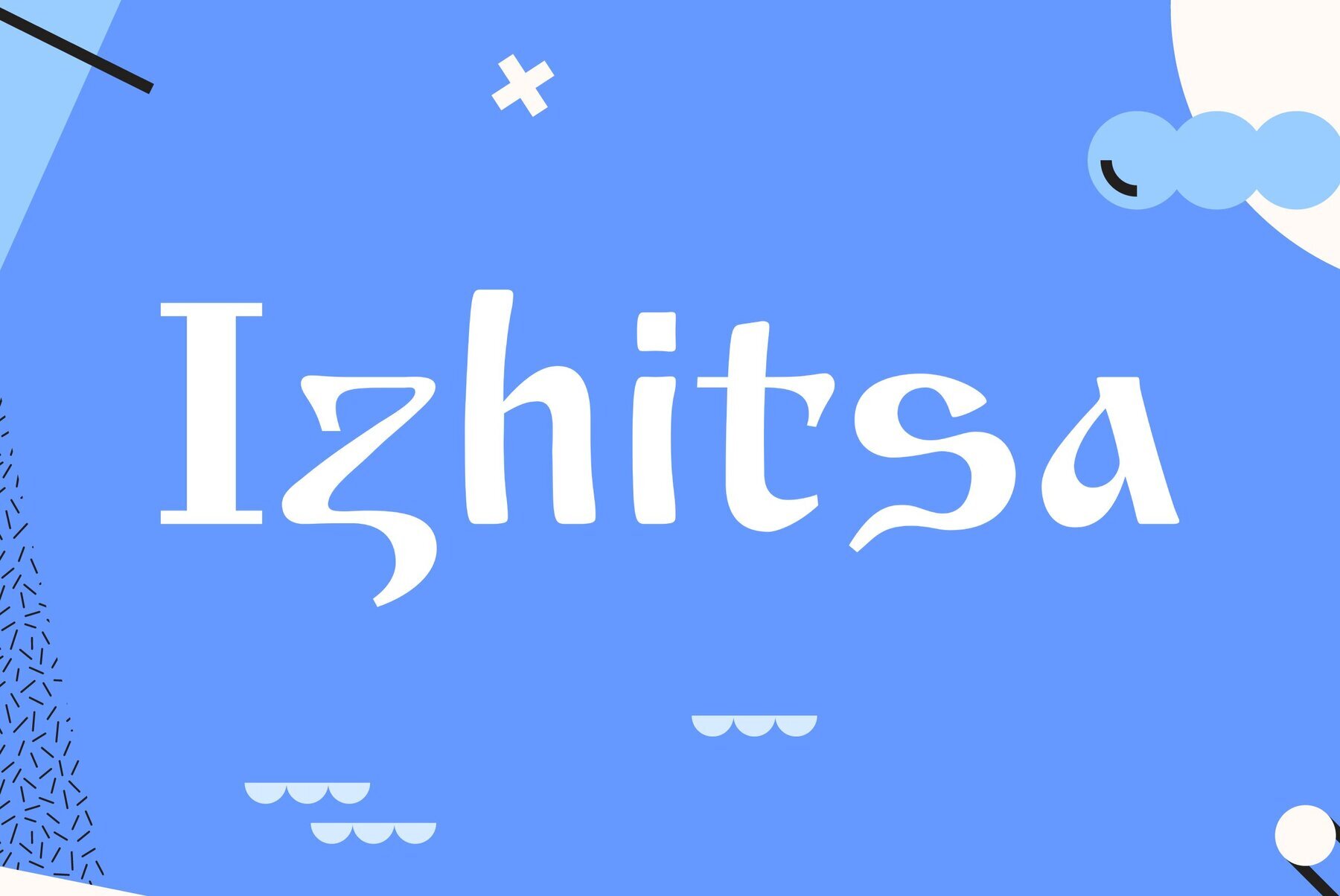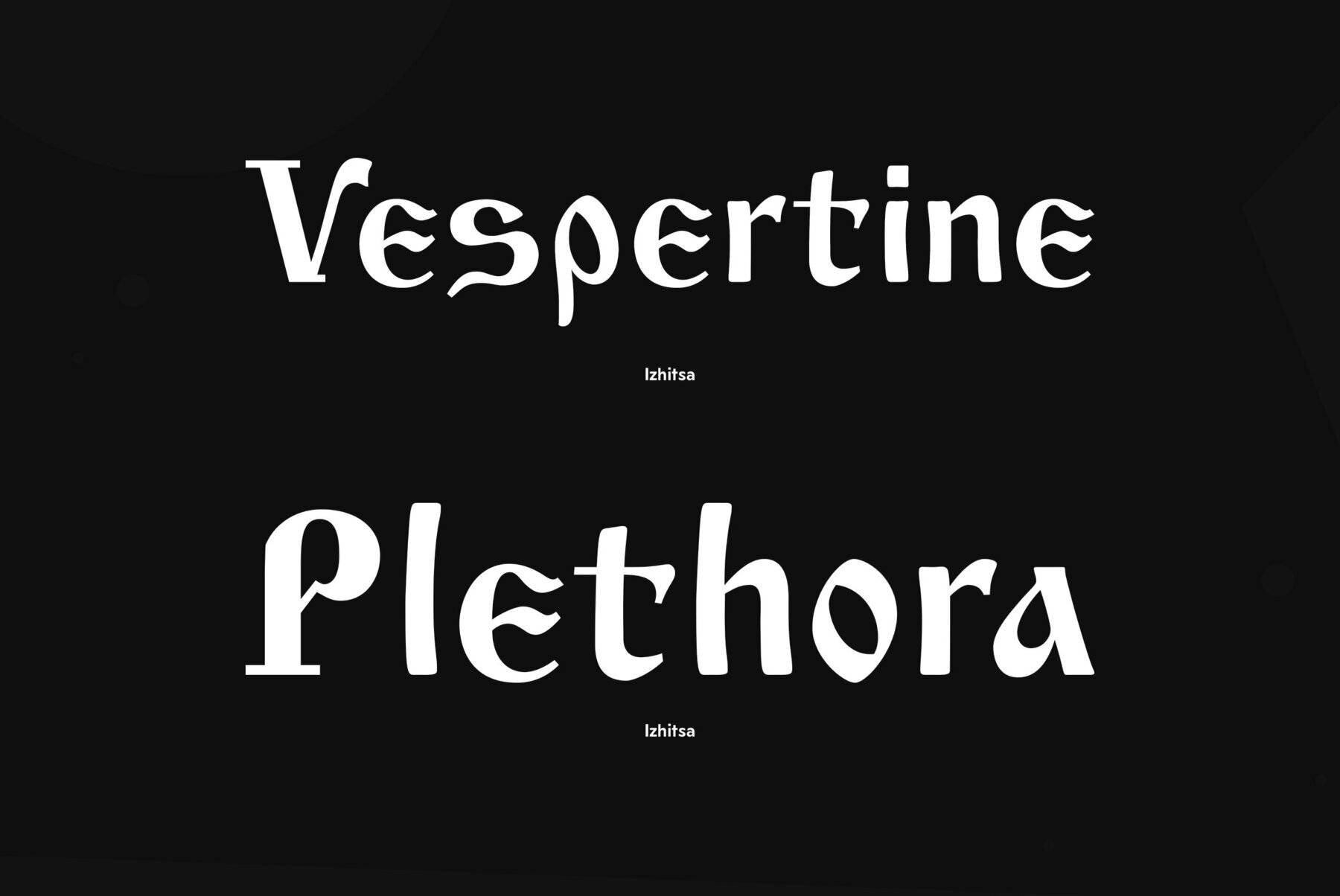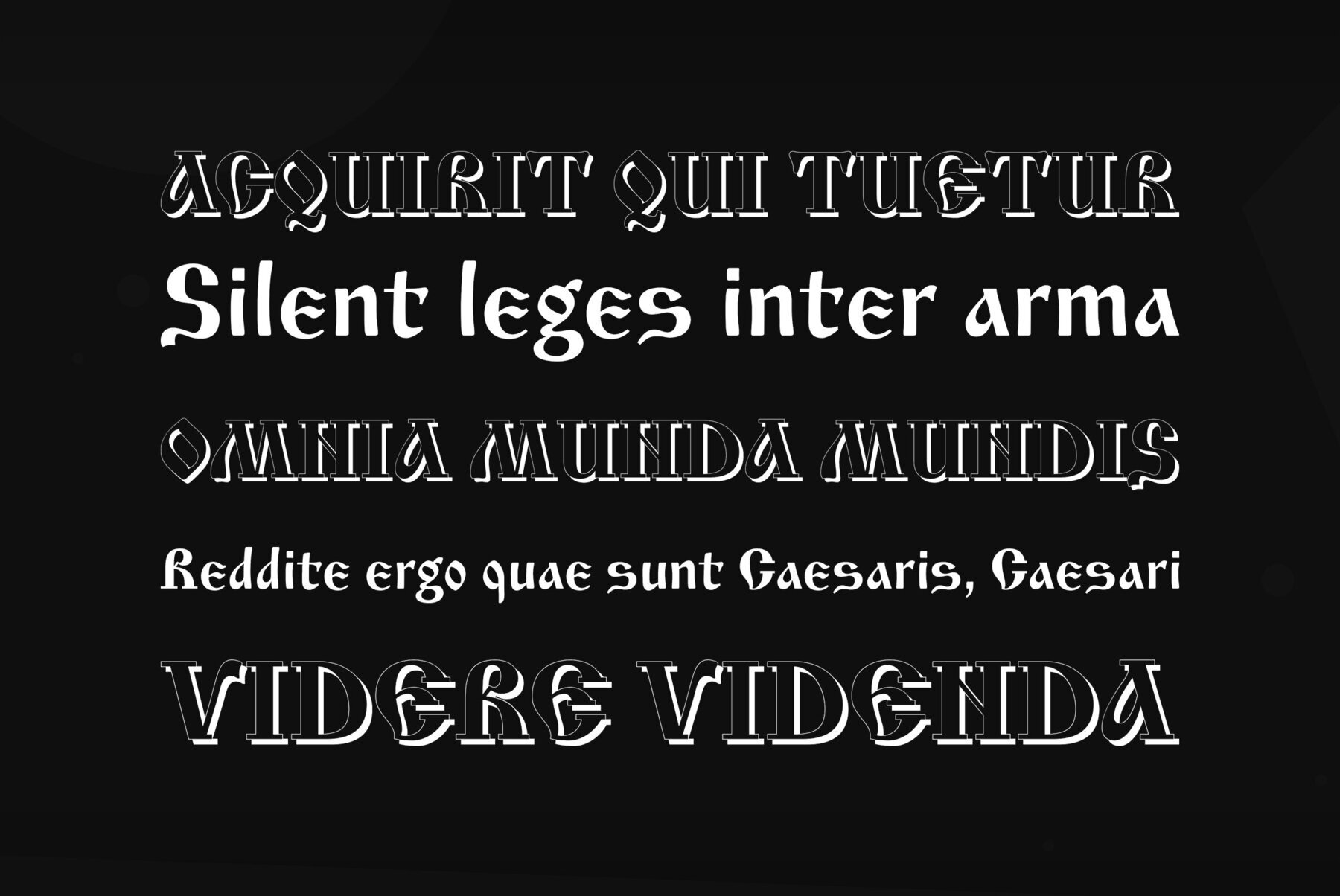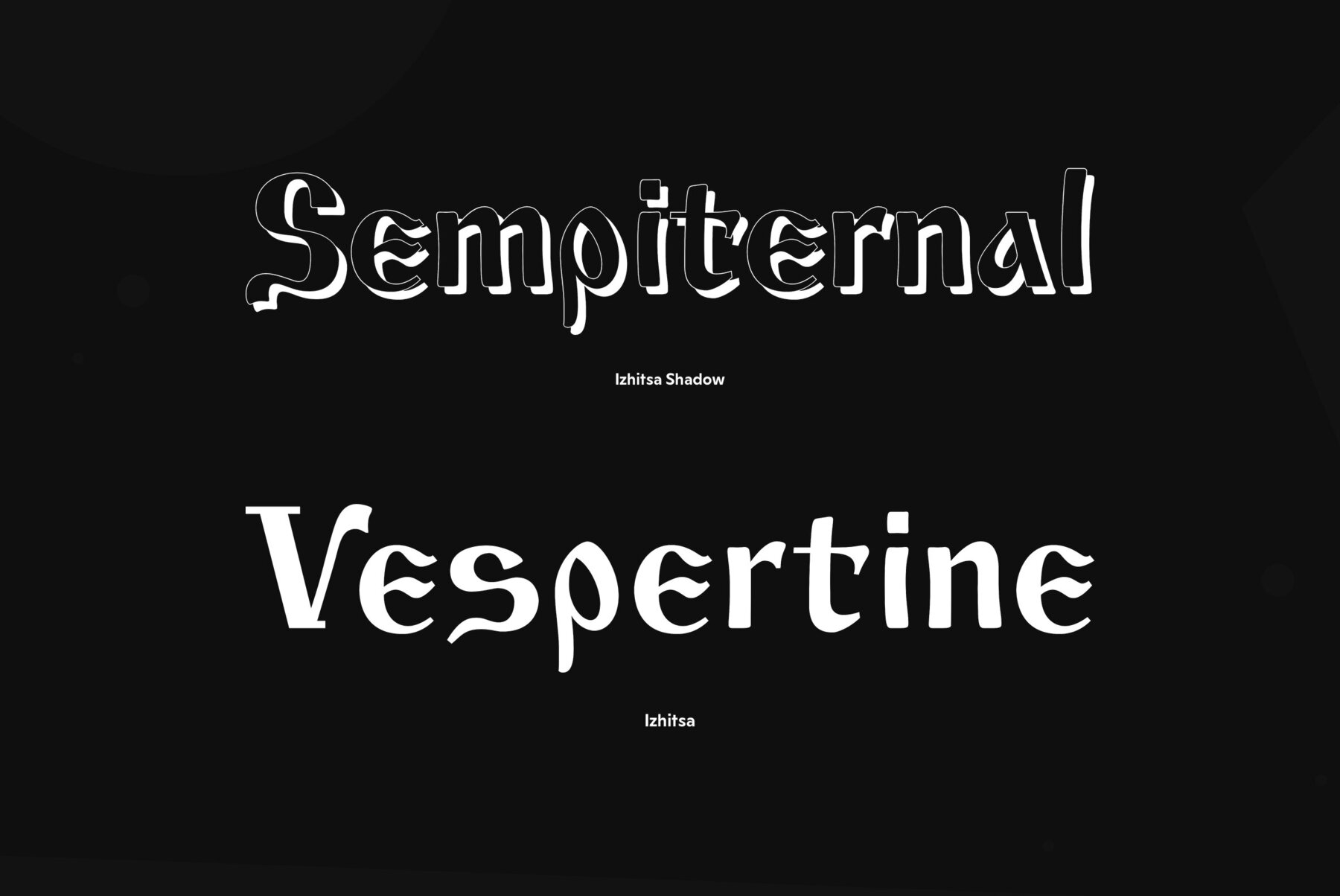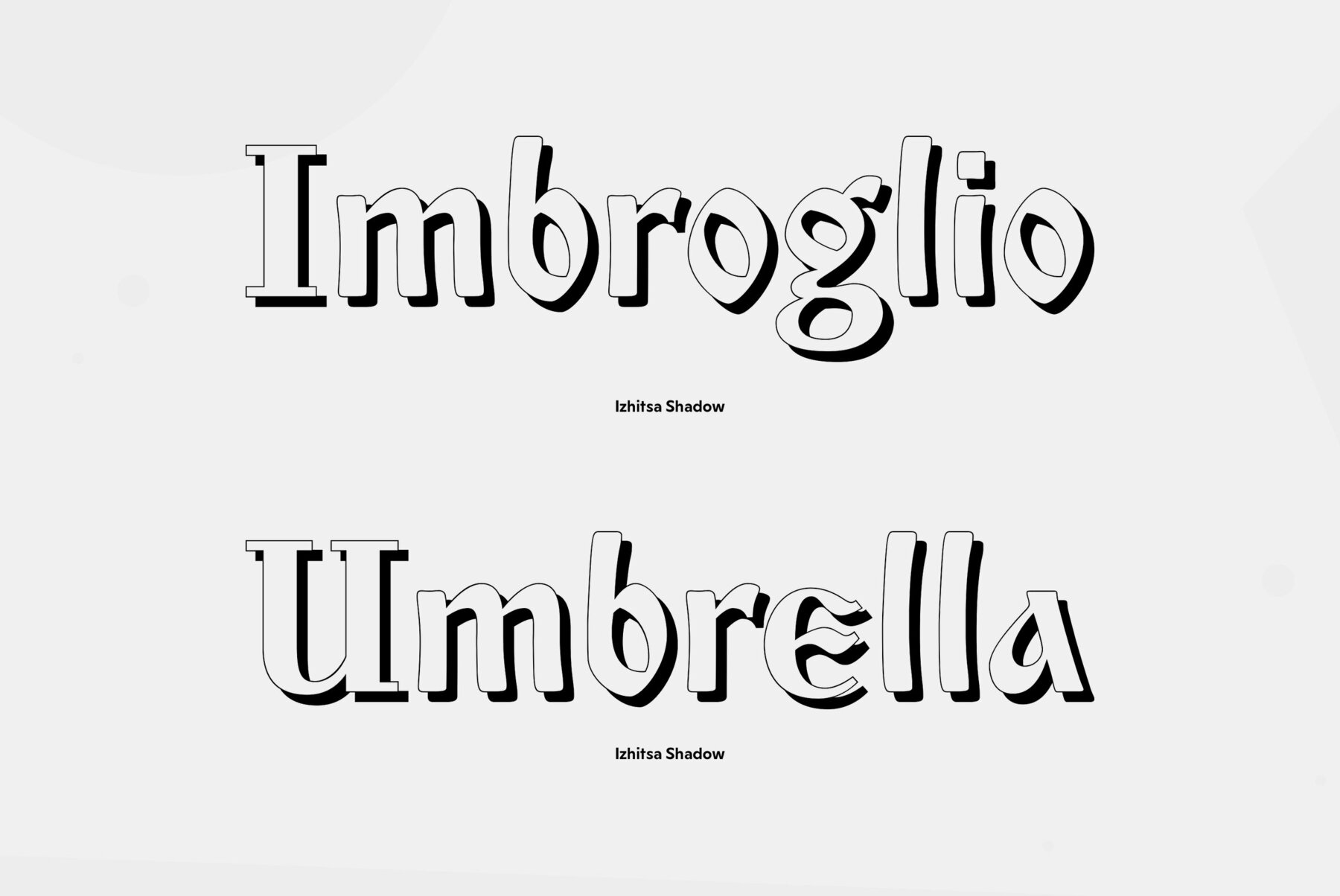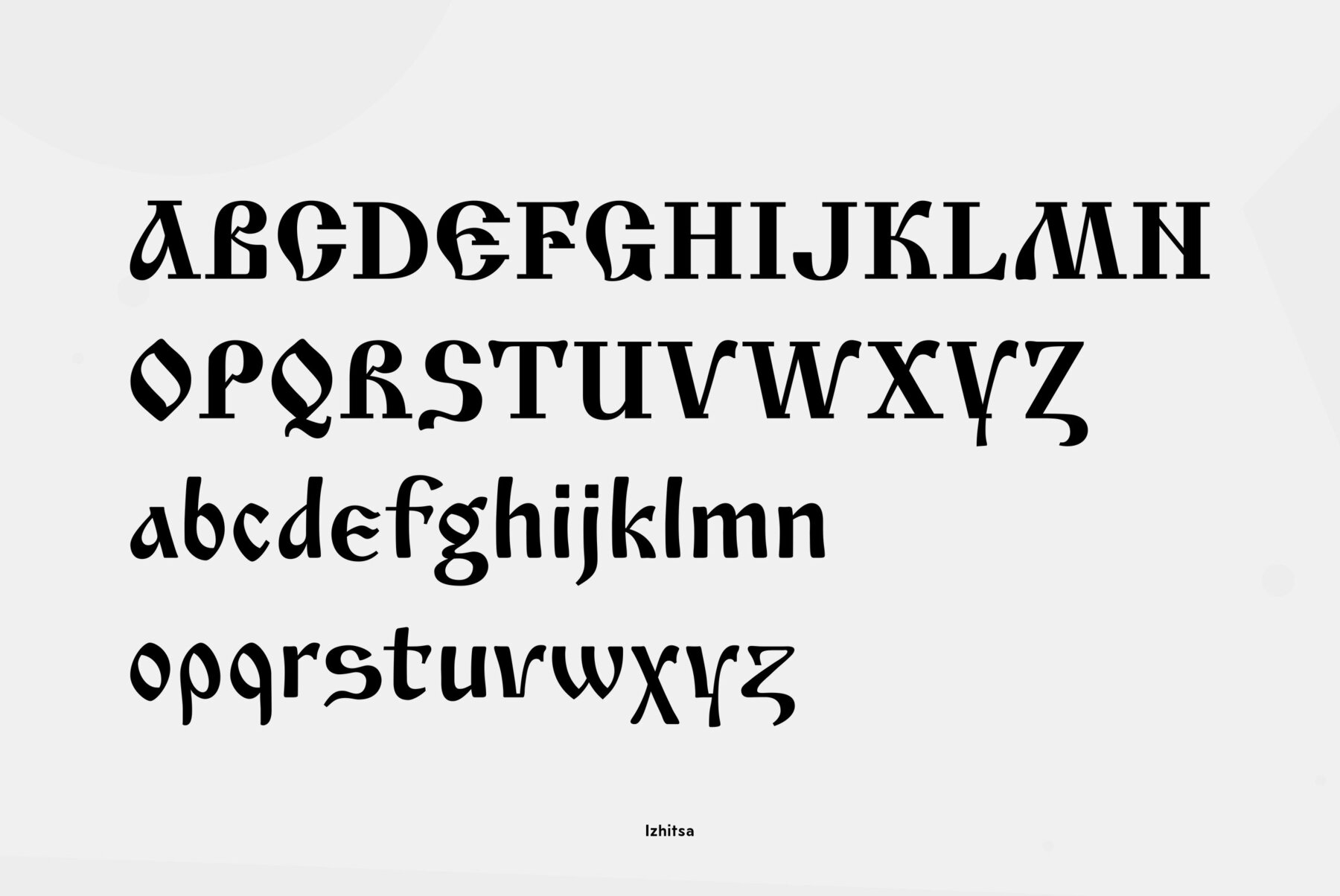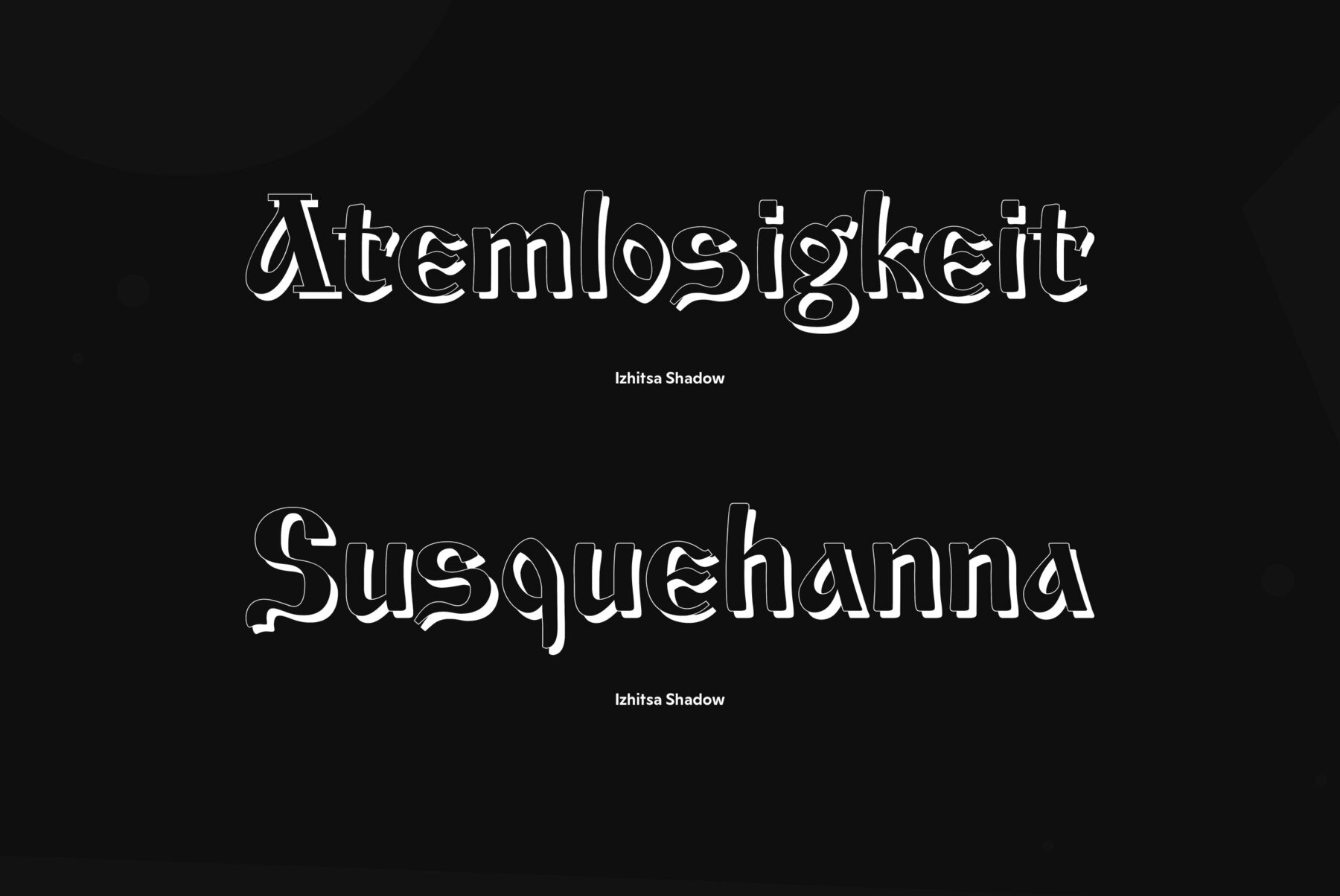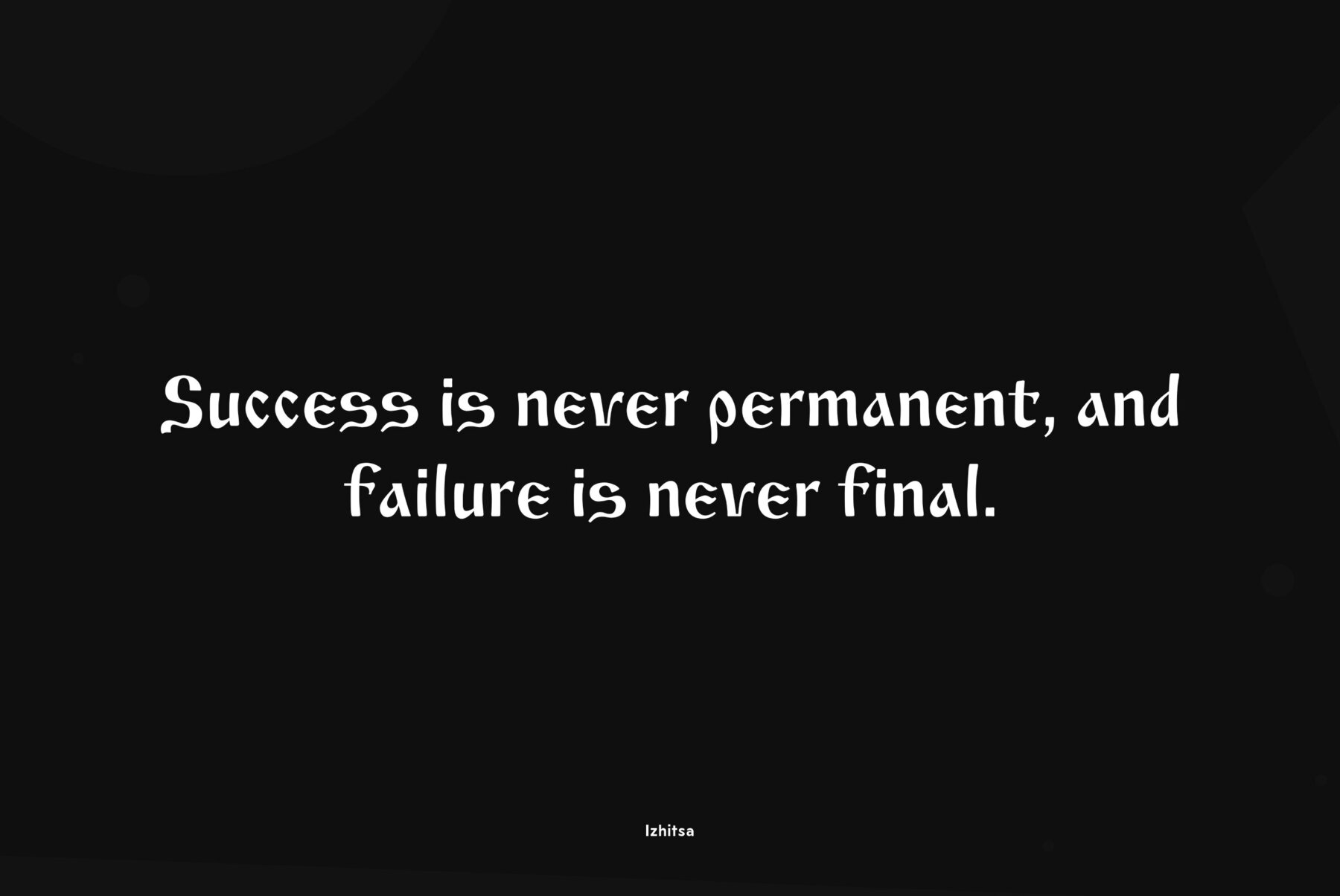
Izhitsa Font
Izhitsa
Izhitsa Shadow
Designed at Polygraphmash type design bureau in 1988 by Svetlana Yermolaeva. Based on Kirillitsa (1982), inspired by typographic poluustav of the Printing Office of the Russian Empire Academy of Science (late 19th century). Shadow style was added by Alexander Tarbeev in 1994. Latin alphabet was added by Oleg Karpinsky in 2009.